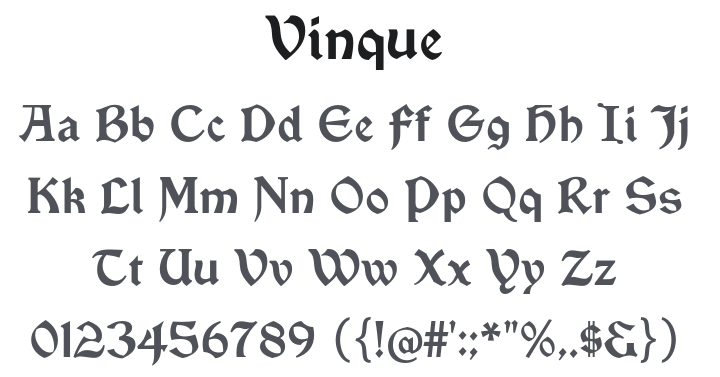
Vinque Font
About Vinque
Vinque bridges historical elegance and modern clarity, drawing from Arts & Crafts influences while maintaining everyday readability. Its 14 styles, from light, graceful cuts to bold, expressive weights with matching italics; adapt seamlessly across packaging, publishing, and cultural design. Light styles convey refinement; heavier ones anchor titles, signage, and logos with confident presence. Supporting Latin, Greek, Cyrillic, and Vietnamese scripts, Vinque combines traditional warmth with professional polish through ligatures and old-style numerals. It’s a versatile serif that honors craftsmanship while speaking fluently to contemporary design.